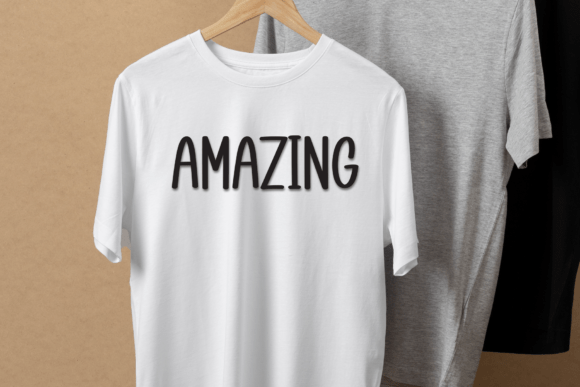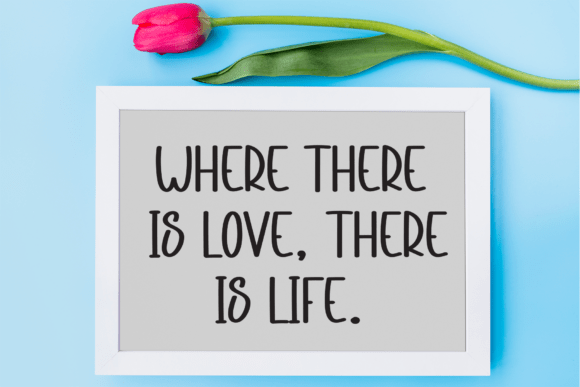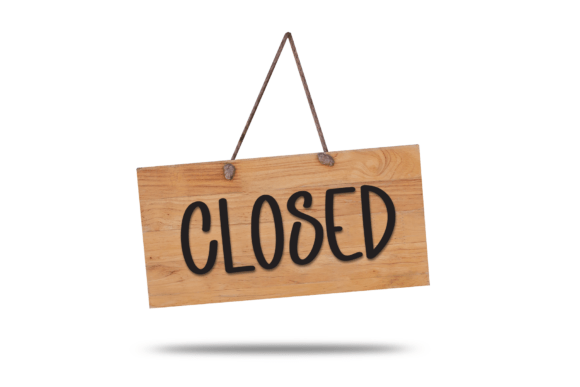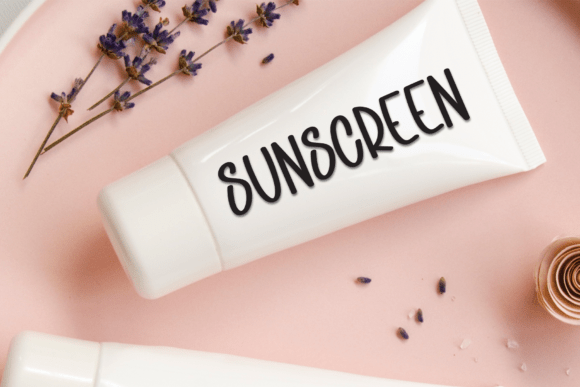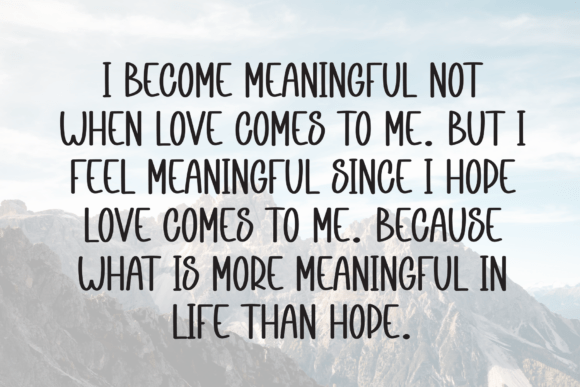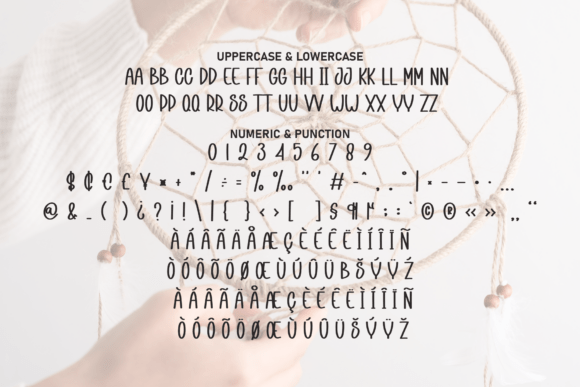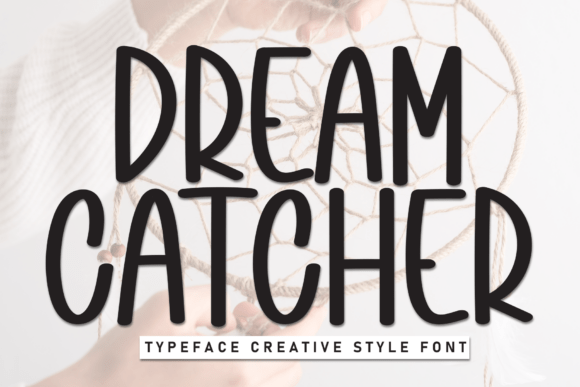
Dream Catcher Font: The Perfect Blend of Warmth and Clarity
In the world of typography, fonts play a crucial role in conveying messages, evoking emotions, and creating a lasting impression. For designers and crafters, finding the right font can be a daunting task, especially when it comes to creating visually appealing and effective designs. This is where the Dream Catcher font comes in – a casual and neat display font designed to bring warmth and clarity to your projects.
The Characteristics of Dream Catcher Font
Dream Catcher font is a beautifully crafted display font that boasts a clean structure and approachable style. Its balanced letterforms offer excellent readability and charm, making it perfect for a wide range of design applications. Whether you’re working on branding, headlines, or everyday designs, this font is sure to impress.
Key Features of Dream Catcher Font
• Clean Structure: The Dream Catcher font features a clean and well-defined structure that makes it easy to read and understand.
• Approachable Style: The font’s approachable style makes it perfect for creating designs that are friendly, inviting, and engaging.
• Balanced Letterforms: The balanced letterforms of the Dream Catcher font ensure that every message feels genuine and inviting.
• Readability: The font’s excellent readability makes it perfect for use in a variety of design applications, from headlines to body text.
• Charm: The Dream Catcher font has a certain charm that makes it stand out from other fonts, making it perfect for creating visually appealing designs.
Uses of Dream Catcher Font
The Dream Catcher font is a versatile font that can be used in a wide range of design applications, including:
• Branding: Use the Dream Catcher font to create logos, business cards, and other branding materials that are friendly, approachable, and inviting.
• Headlines: The font’s clean structure and excellent readability make it perfect for use in headlines, titles, and other attention-grabbing elements.
• Everyday Designs: Use the Dream Catcher font to create everyday designs, such as social media graphics, flyers, and brochures, that are visually appealing and effective.
Why Choose Dream Catcher Font?
There are many reasons why you should choose the Dream Catcher font for your design projects. Here are a few:
• Unique Style: The Dream Catcher font has a unique style that sets it apart from other fonts, making it perfect for creating designs that stand out.
• Excellent Readability: The font’s excellent readability ensures that your message is conveyed clearly and effectively.
• Versatility: The Dream Catcher font can be used in a wide range of design applications, making it a great addition to any designer’s toolkit.
Tips for Using Dream Catcher Font
Here are a few tips for using the Dream Catcher font in your design projects:
• Use it for Headlines: The Dream Catcher font is perfect for use in headlines, titles, and other attention-grabbing elements.
• Pair it with Other Fonts: The font pairs well with other fonts, making it perfect for use in combination with other typography.
• Experiment with Colors: The Dream Catcher font looks great in a variety of colors, so don’t be afraid to experiment and find the perfect color scheme for your design.
In conclusion, the Dream Catcher font is a beautiful and versatile font that is perfect for designers and crafters looking to add a touch of warmth and clarity to their projects. With its clean structure, approachable style, and excellent readability, this font is sure to impress. Whether you’re working on branding, headlines, or everyday designs, the Dream Catcher font is a great choice.